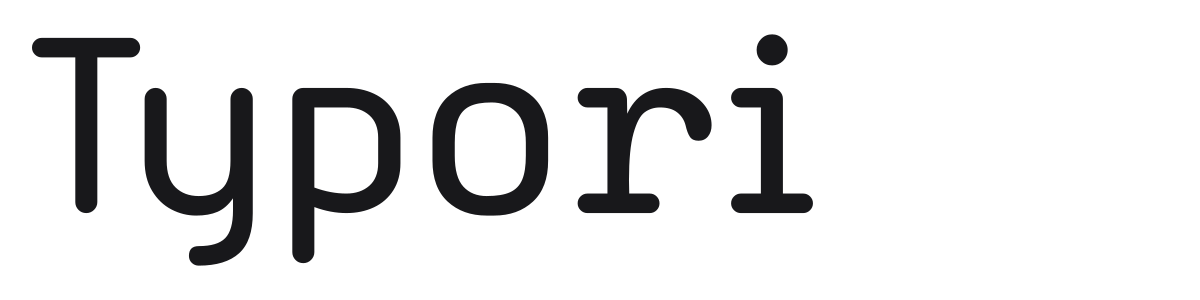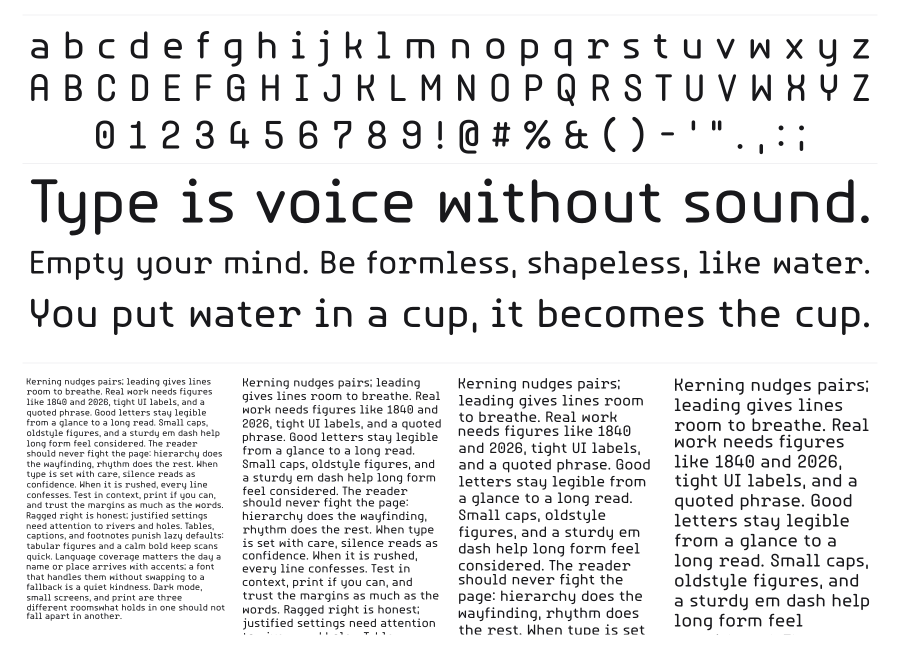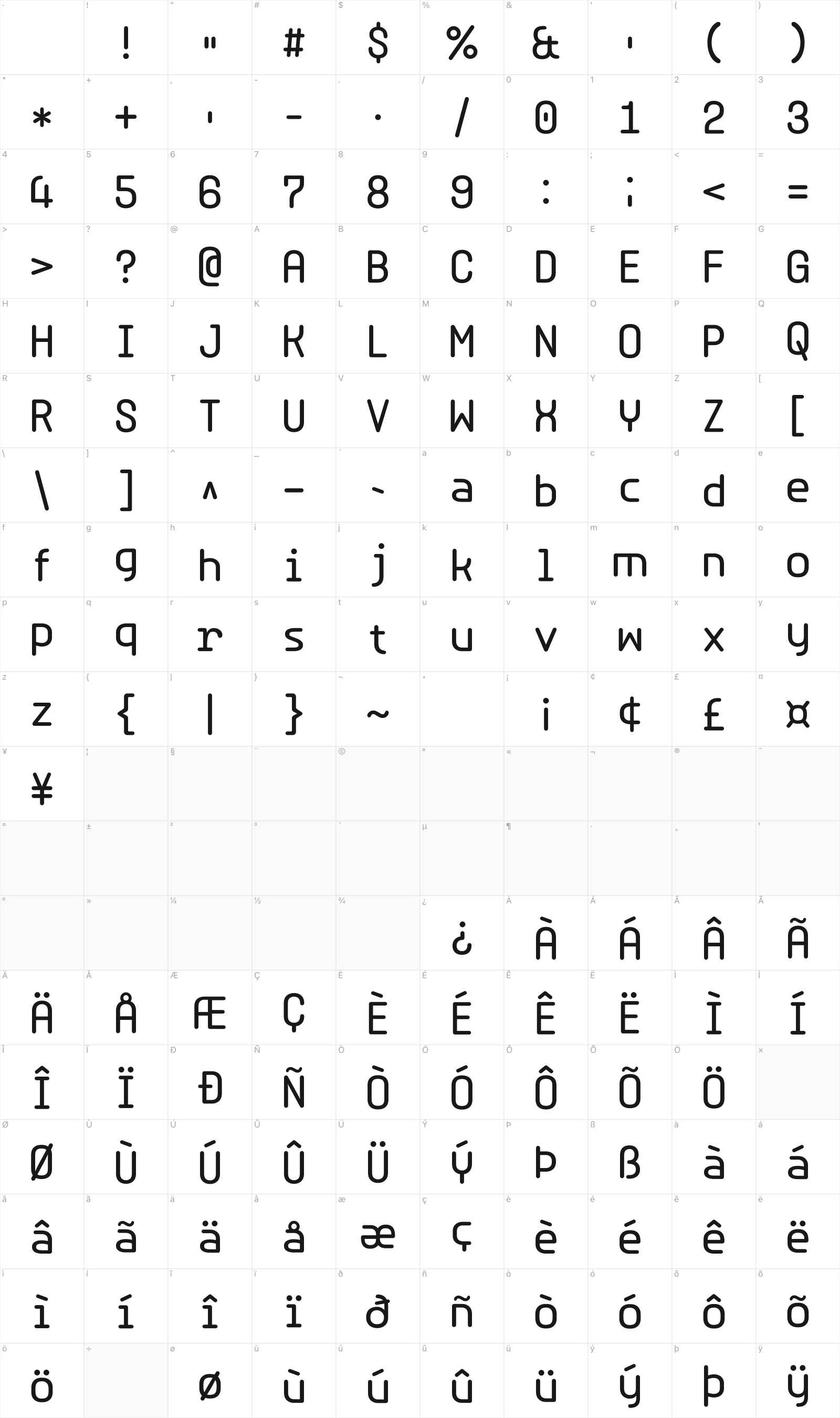
Typori
Typori is a rounded monospace sans inspired by the geometric structures of the Kaohsiung pier in Taiwan. Its soft terminals and consistent stroke weight give it a warmth that most fixed-width fonts lack, sitting comfortably between a coding font and a display design. That balance makes it usable across interfaces, posters, and identity work without feeling clinical.